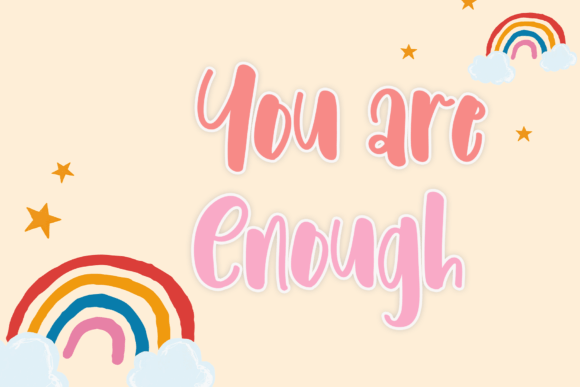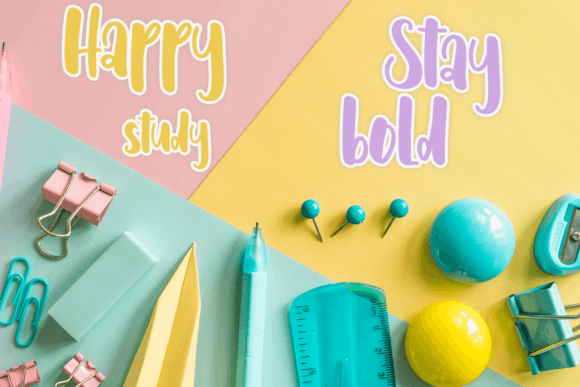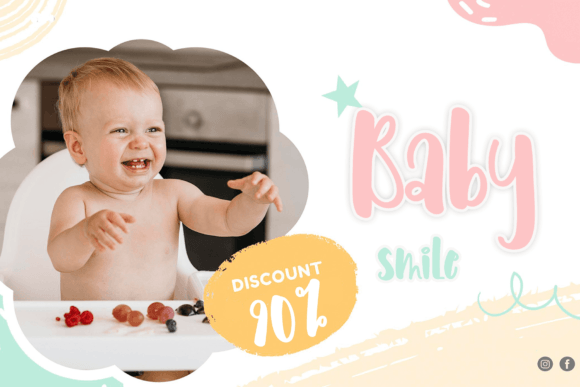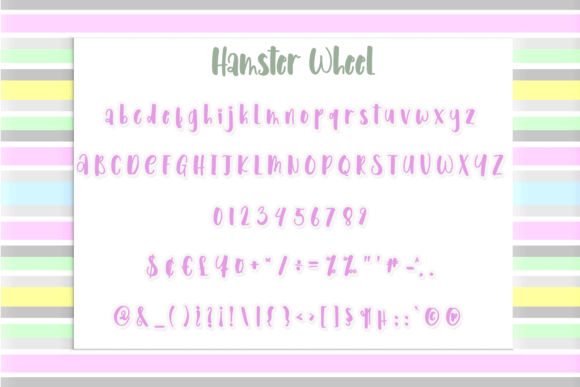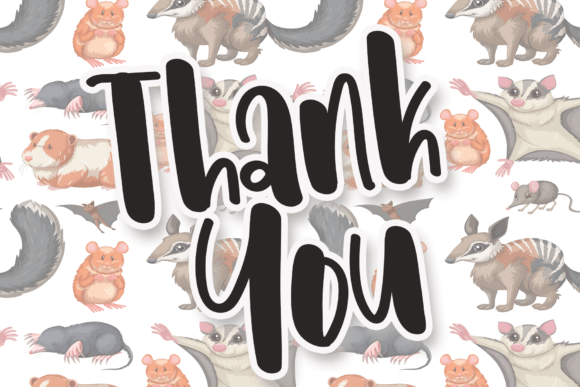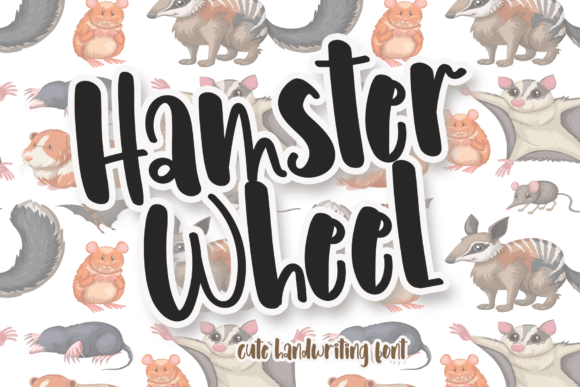
Introducing Hamster Wheel Font: Elevate Your Designs with Elegance
Are you on the hunt for a font that exudes luxury and sophistication? Look no further than the Hamster Wheel Font, a stunning handwritten font that is sure to capture your heart. With its elegant touch and timeless style, this font is perfect for designers and crafters looking to add a touch of refinement to their projects.
The Characteristics of Hamster Wheel Font
Hamster Wheel Font is a luxury handwritten font that boasts an incredibly distinct and timeless style. Its elegant touch is evident in every curve and line, making it perfect for a wide range of projects, from branding and advertising to packaging and digital media. The font’s unique characteristics include:
- Elegant and Refined: Hamster Wheel Font features a sophisticated and elegant design that is sure to elevate your designs.
- Handwritten with Love: This font is carefully crafted with a personal touch, giving it a warm and inviting feel.
- Timeless Style: The font’s classic design ensures that it will remain stylish and relevant for years to come.
- Distinct and Unique: Hamster Wheel Font stands out from the crowd with its unique and eye-catching design.
Why Choose Hamster Wheel Font?
With so many fonts available, why choose Hamster Wheel Font? Here are just a few reasons why this font stands out:
- Perfect for Luxury Brands: Hamster Wheel Font is ideal for luxury brands looking to convey a sense of sophistication and elegance.
- Versatile: This font can be used for a wide range of projects, from digital media to print materials.
- Easy to Read: Despite its elegant design, Hamster Wheel Font remains easy to read, making it perfect for body text and headlines.
- High-Quality: This font is crafted with attention to detail, ensuring that it looks great in any size or format.
Hamster Wheel Font is a versatile font that can be used for a wide range of projects. Here are a few ideas to get you started:
- Branding and Logo Design: Use Hamster Wheel Font to create a sophisticated and elegant brand identity.
- Wedding Invitations: Add a touch of luxury to your wedding invitations with this beautiful font.
- Packaging Design: Use Hamster Wheel Font to create eye-catching packaging that stands out on store shelves.
- Digital Media: Add a touch of elegance to your digital media, such as social media graphics and website headers.
In conclusion, Hamster Wheel Font is a luxury handwritten font that is sure to elevate your designs. With its elegant touch, timeless style, and versatility, this font is perfect for designers and crafters looking to add a touch of sophistication to their projects. Whether you’re working on a branding project, wedding invitation, or packaging design, Hamster Wheel Font is the perfect choice.